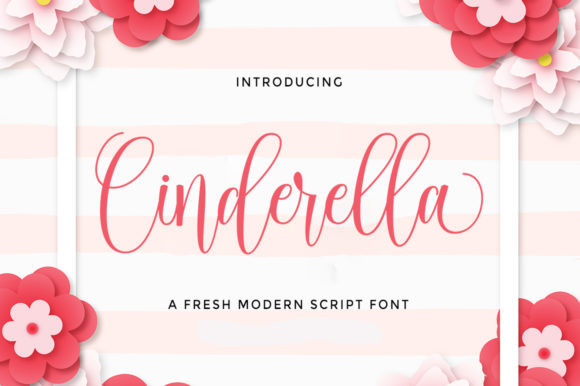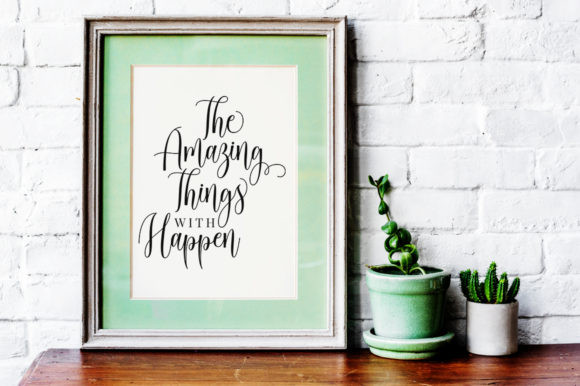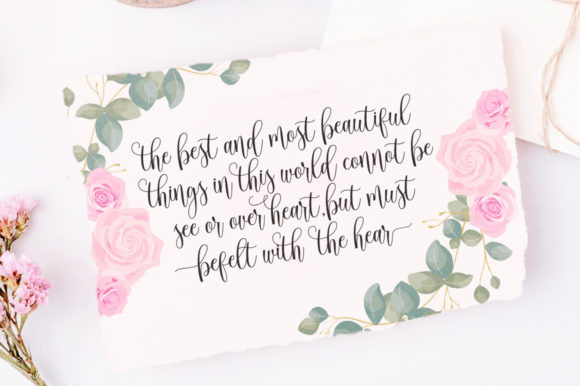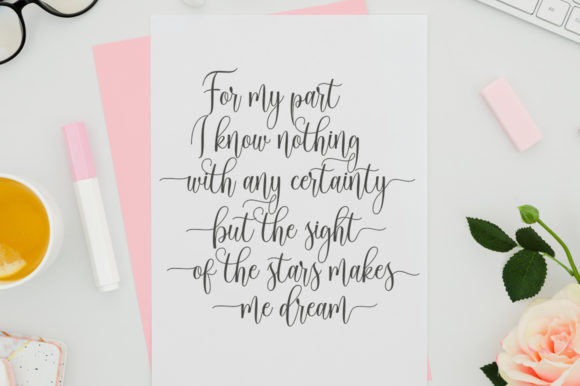
Cinderella Font
Cinderella is a gorgeously light and playful script with a distinct calligraphic feel. It’s a great font for a wide range of crafting projects!